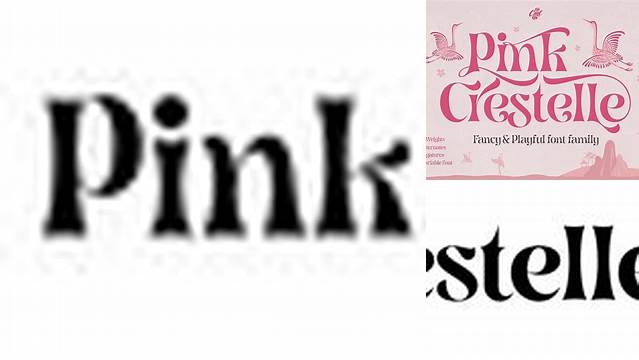
Pink Crestelle Medium Font: Free Download Guide
Hey guys! Ever stumbled upon a font that just clicks? That's how I felt when I first saw the Pink Crestelle Medium font. It's got this elegant, yet playful vibe that makes it perfect for so many projects. Whether you're designing a logo, sprucing up your website, or just looking for a fresh font for your personal projects, Pink Crestelle Medium might just be your new best friend. So, you're on the hunt for a pink crestelle medium font free download, huh? Well, you've come to the right place! Let's dive into everything you need to know about this fantastic font, where to find it, and how to use it like a pro.
1. What is Pink Crestelle Medium Font?
So, what is Pink Crestelle Medium font exactly? It’s a typeface that balances sophistication with a touch of whimsy. Think elegant curves and clean lines, but with an approachable feel. This makes it incredibly versatile. It's not just another pretty font; it's a font that can adapt to different styles and needs. You might find it fitting perfectly for branding materials, website headers, or even print designs like invitations and posters. The 'Medium' in its name refers to its weight, meaning it's not too thin to disappear and not too bold to overwhelm. It strikes a perfect balance, making it readable and aesthetically pleasing in various sizes and contexts. It’s like the Goldilocks of fonts – just right! This pink crestelle medium font free download quest will lead you to discover how many designers love its unique character and readability.
2. Key Features of Pink Crestelle Medium
Let's talk specifics. What makes Pink Crestelle Medium stand out from the crowd? For starters, its legibility is top-notch. Even in longer texts, it's easy on the eyes, which is crucial for keeping your audience engaged. Then there's its unique character design. Each letter has subtle quirks that give it personality without sacrificing professionalism. The serifs are delicate, the curves are graceful, and the overall impression is one of understated elegance. Another key feature is its versatility. As we mentioned earlier, it works well in a wide range of applications, from digital to print. It also pairs beautifully with other fonts, allowing you to create interesting and dynamic typography. If you’re considering a pink crestelle medium font free download, remember these features will significantly impact your design choices.
6. Using Pink Crestelle Medium in Graphic Design
Now for the fun part: putting Pink Crestelle Medium to work in your graphic design projects! This font truly shines when used strategically. Think about how its elegance can elevate a logo or how its readability can make a website header pop. One great tip is to use it for headlines and titles, where its unique character can grab attention without being overwhelming. You might also consider using it for shorter blocks of text, like quotes or captions, where its personality can shine. However, because it is a display font, it's best to use it sparingly in body text to avoid fatigue. When you find that perfect pink crestelle medium font free download, experiment with different sizes, weights, and colors to see how it interacts with your overall design.
7. Pairing Pink Crestelle Medium with Other Fonts
Font pairing is an art form, guys. And the right combination can make or break your design. Pink Crestelle Medium is versatile, but it still needs a good partner to truly shine. Generally, it pairs well with sans-serif fonts that offer a clean and modern contrast. Think about fonts like Helvetica, Arial, or Open Sans for your body text. These fonts are highly readable and won't compete with the more decorative nature of Pink Crestelle Medium. You could also consider using a lighter weight serif font for a more subtle contrast, such as Lora or Merriweather. The key is to create a visual hierarchy, where Pink Crestelle Medium stands out in headers and titles, while the supporting font provides a comfortable reading experience in the body. Remember, finding the right pairing is part of the pink crestelle medium font free download journey – the possibilities are endless!
8. Pink Crestelle Medium for Logos and Branding
If you're looking to create a brand identity that's both sophisticated and approachable, Pink Crestelle Medium could be a fantastic choice. Its elegant curves and balanced weight make it ideal for logos, especially for businesses that want to convey a sense of luxury or creativity. Imagine it adorning the logo of a boutique clothing store, a high-end salon, or a creative agency. The font's unique character can help your brand stand out in a crowded marketplace, while its readability ensures your brand name is easily recognizable. When incorporating it into your branding, consider using it consistently across all your materials, from your website to your business cards, to create a cohesive and professional image. Finding a pink crestelle medium font free download can be a game-changer for your brand’s visual identity.
9. Using Pink Crestelle Medium in Web Design
12. The History and Design of Crestelle Fonts
To truly appreciate Pink Crestelle Medium, it's helpful to delve a little into the history and design philosophy behind the Crestelle font family. While specific details about the designer and the font's origins might be elusive (as is often the case with free fonts), understanding the design principles can give you insights into how to use it effectively. Crestelle, as a typeface, likely draws inspiration from classic serif fonts, known for their elegance and readability. The